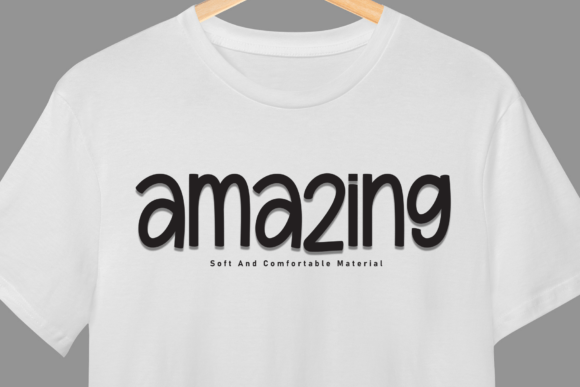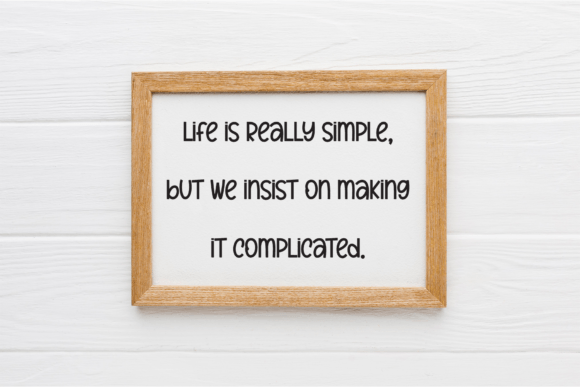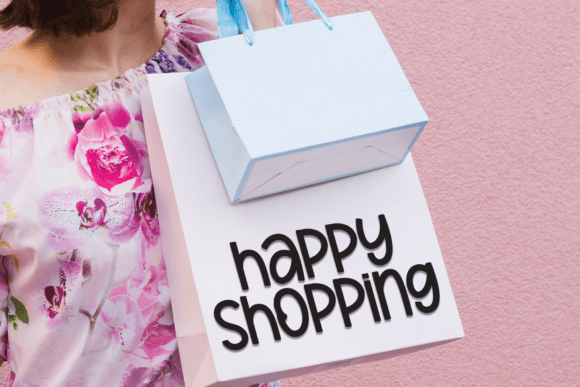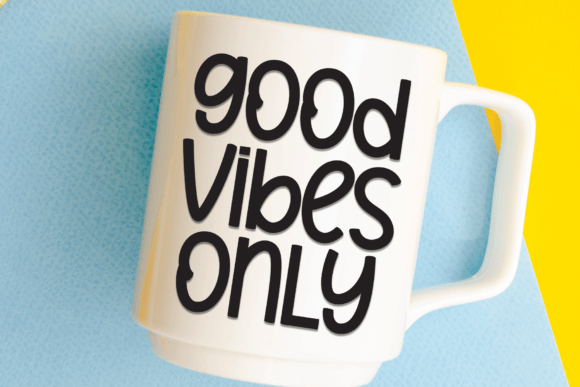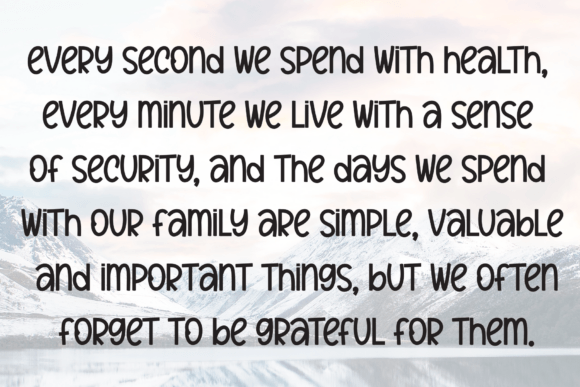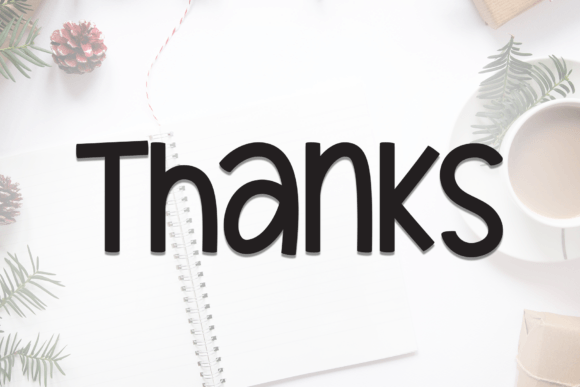
Introducing Happy January Font: The Sweet and Friendly Handwritten Font for Your Creative Projects
Are you tired of using the same old fonts for your designs? Do you want to add a personal touch to your creations? Look no further than Happy January Font, a sweet and friendly handwritten font that’s perfect for a wide range of projects. With its natural and unique style, Happy January Font is incredibly versatile and can be used for everything from greeting cards to branding and packaging.
As a designer or crafter, you’re always on the lookout for fonts that can help you stand out from the crowd. Happy January Font is a game-changer. Its handwritten style gives your designs a personal and approachable feel that’s sure to resonate with your audience. Whether you’re creating invitations, labels, or social media graphics, Happy January Font is the perfect choice.
What Makes Happy January Font So Special?
So, what sets Happy January Font apart from other fonts? Here are just a few things that make it special:
- Unique and Handwritten Style: Happy January Font is a truly one-of-a-kind font that’s been carefully crafted to give your designs a personal touch.
- Natural and Friendly Feel: The font has a warm and inviting feel that’s perfect for creating designs that are approachable and engaging.
- Versatile and Adaptable: Happy January Font can be used for a wide range of projects, from formal to informal, and can be paired with a variety of other fonts and design elements.
How to Use Happy January Font in Your Designs
One of the best things about Happy January Font is how easy it is to use. Here are a few ideas to get you started:
- Greeting Cards and Invitations: Use Happy January Font to create beautiful and personalized greeting cards and invitations for special occasions.
- Branding and Packaging: Add a personal touch to your branding and packaging with Happy January Font, perfect for small businesses and entrepreneurs.
- Social Media Graphics: Use Happy January Font to create eye-catching social media graphics that will help you stand out from the crowd.
- Labels and Tags: Add a personal touch to your labels and tags with Happy January Font, perfect for crafters and makers.
Tips for Getting the Most Out of Happy January Font
Here are a few tips for getting the most out of Happy January Font:
- Pair with Other Fonts: Happy January Font pairs well with a variety of other fonts, so don’t be afraid to get creative and try out different combinations.
- Use for Headings and Body Text: Happy January Font is perfect for both headings and body text, making it a versatile addition to your design toolkit.
In conclusion, Happy January Font is a sweet and friendly handwritten font that’s perfect for designers and crafters looking to add a personal touch to their creations. With its natural and unique style, Happy January Font is incredibly versatile and can be used for a wide range of projects. So why wait? Download Happy January Font today and start creating beautiful and engaging designs that will help you stand out from the crowd!
The only limit is your imagination, so don’t be afraid to get creative and have fun with Happy January Font!